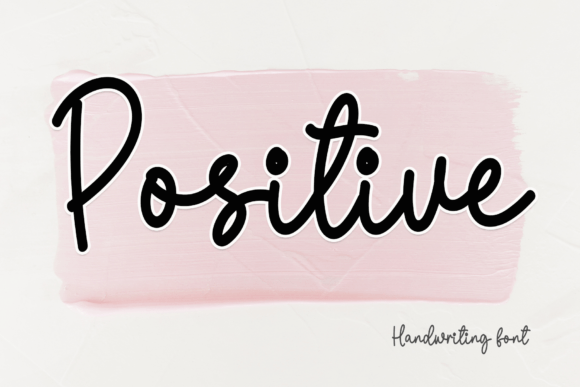
Feast your eyes on Positive Font, the captivating script font family that radiates warmth and charm. Crafted by the ingenious Creatype Designer, Positive Font boasts an irresistibly friendly and approachable personality, making it the ideal choice for expressing your heartfelt messages.
Positive Font's graceful strokes and playful curves evoke a sense of joy and optimism, perfectly complementing your digital creations. Whether you're designing social media posts, crafting heartfelt invitations, or creating unique DIY projects, Positive Font will transform your words into visually stunning masterpieces.
Experience the sheer delight of using Positive Font, the ultimate font style for technology. Its clean lines and legible characters ensure readability and clarity, making it perfect for website designs, app interfaces, and presentations. Positive Font's versatility extends beyond the digital realm; it also shines in print media, adding a touch of whimsy and charm to brochures, flyers, and posters.
With Positive Font, the possibilities are endless. Let your imagination soar and create designs that exude warmth, happiness, and creativity. Its user-friendly nature makes it accessible to both seasoned designers and those new to the art of typography. Embrace Positive Font and embark on a journey of self-expression and artistic exploration.